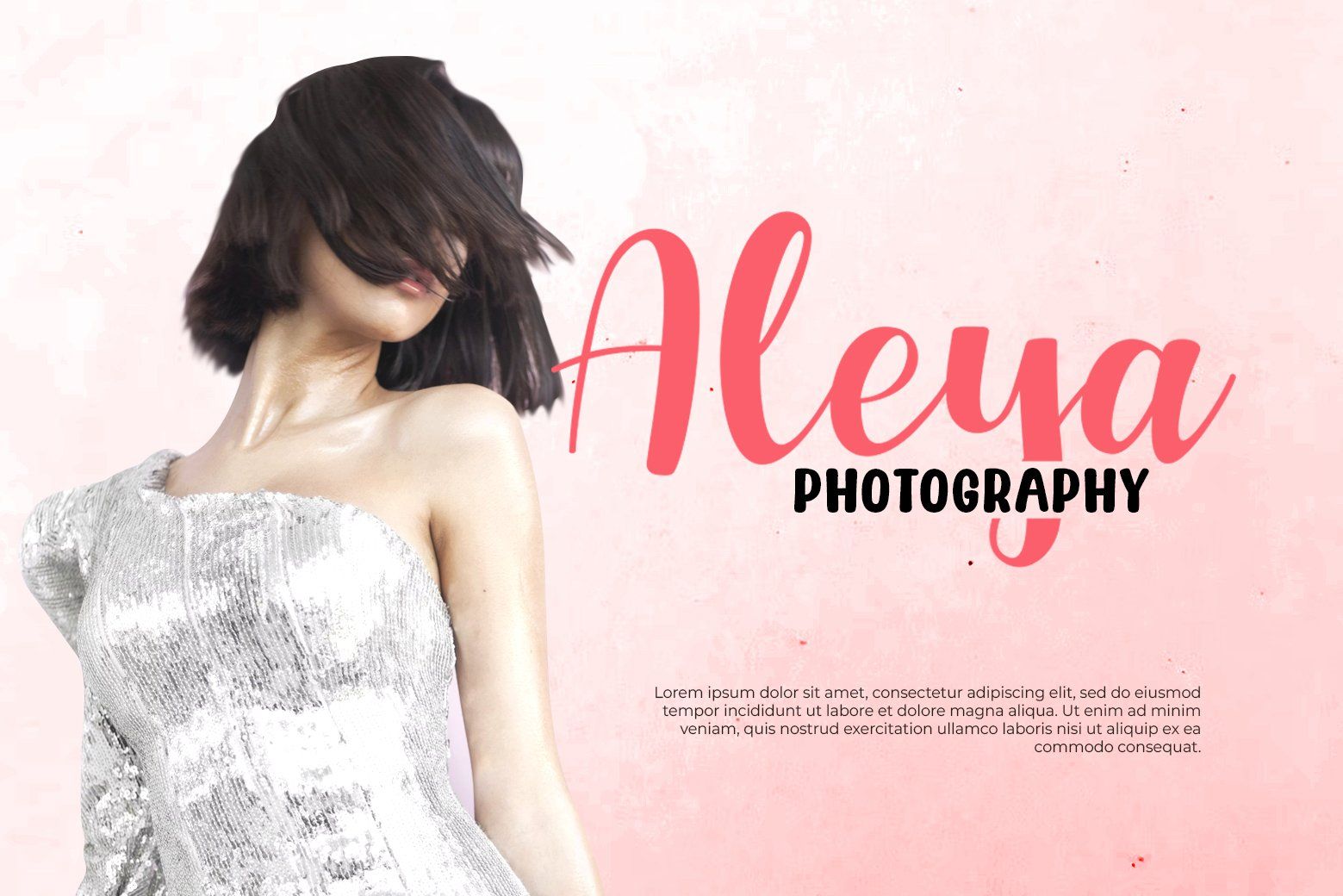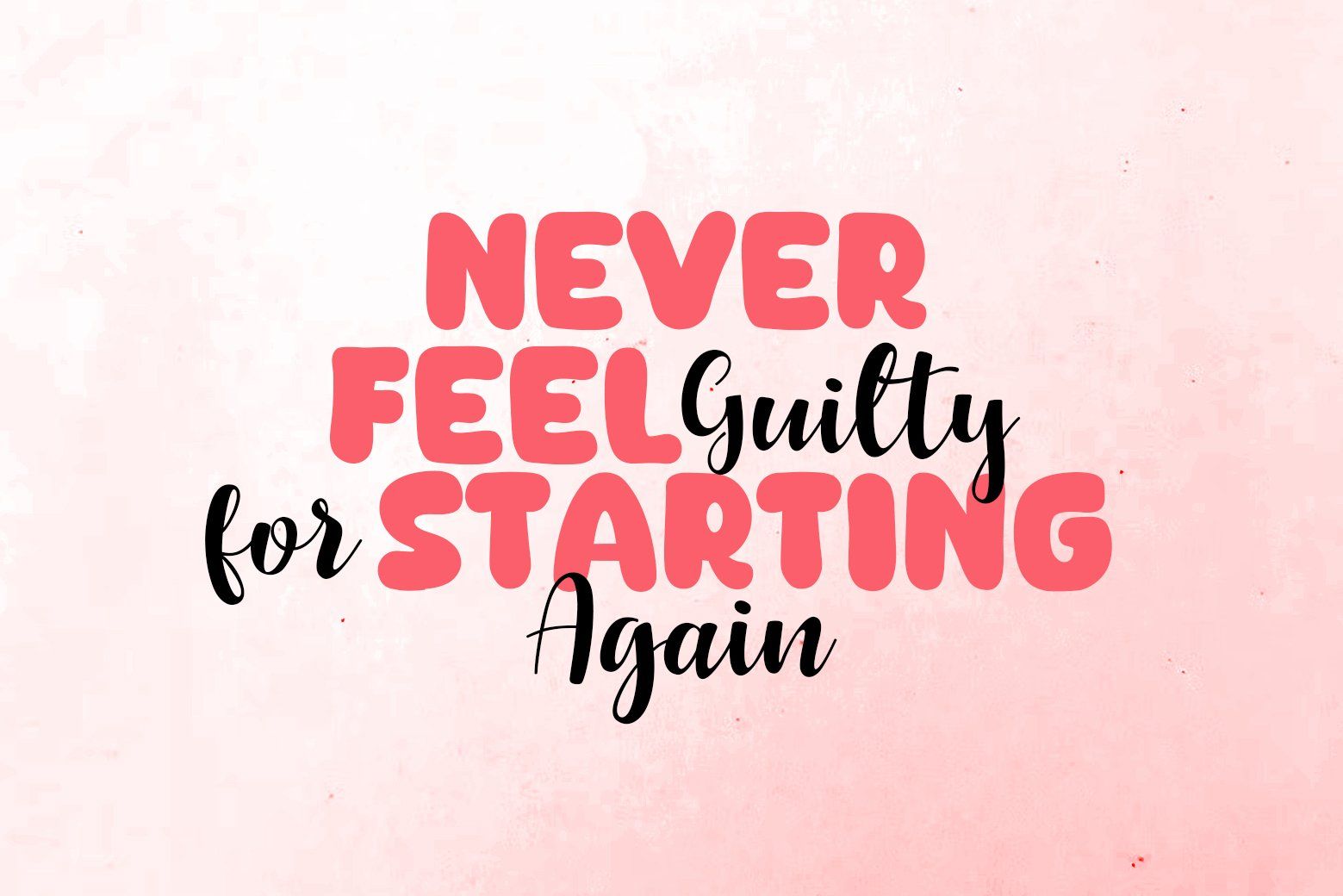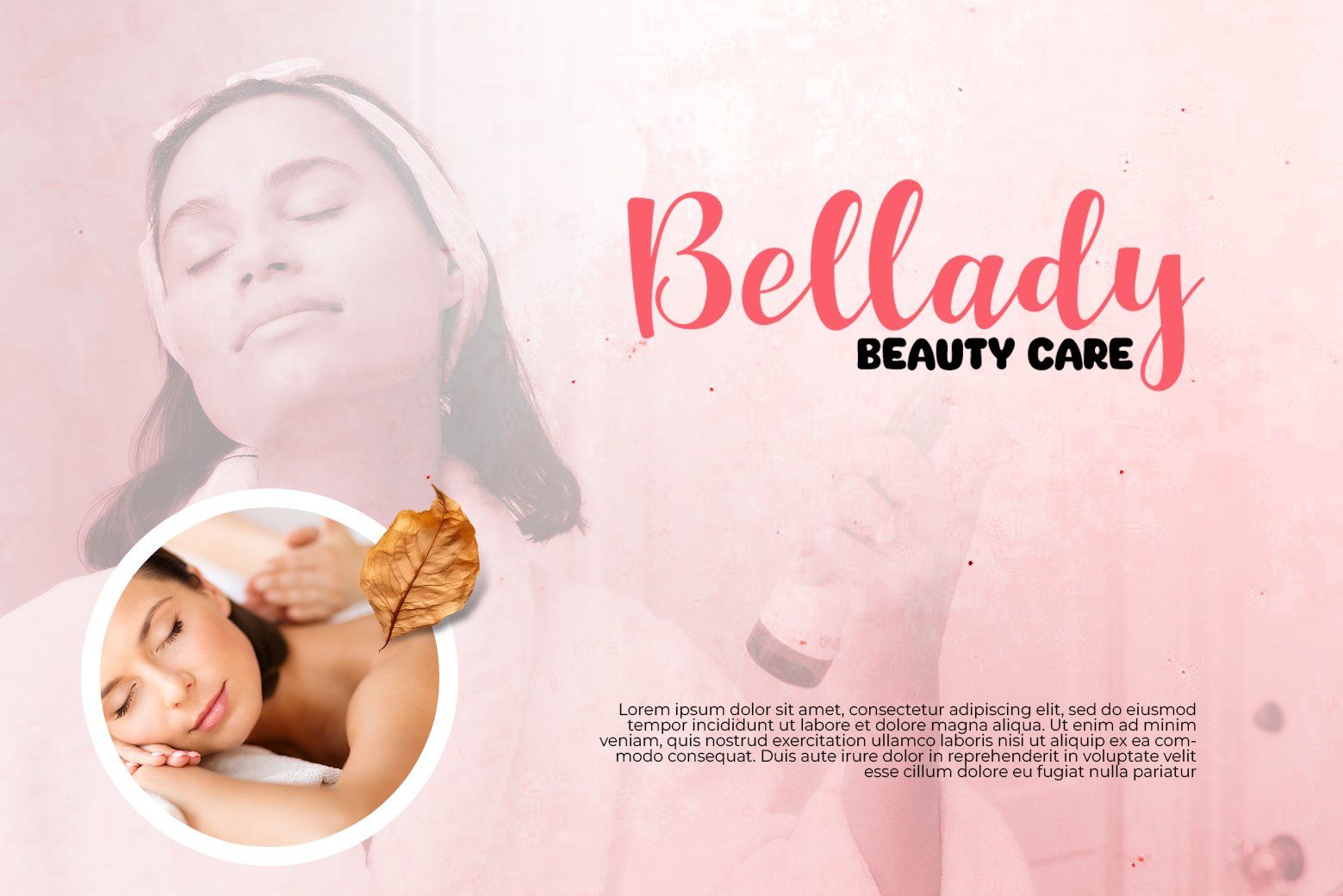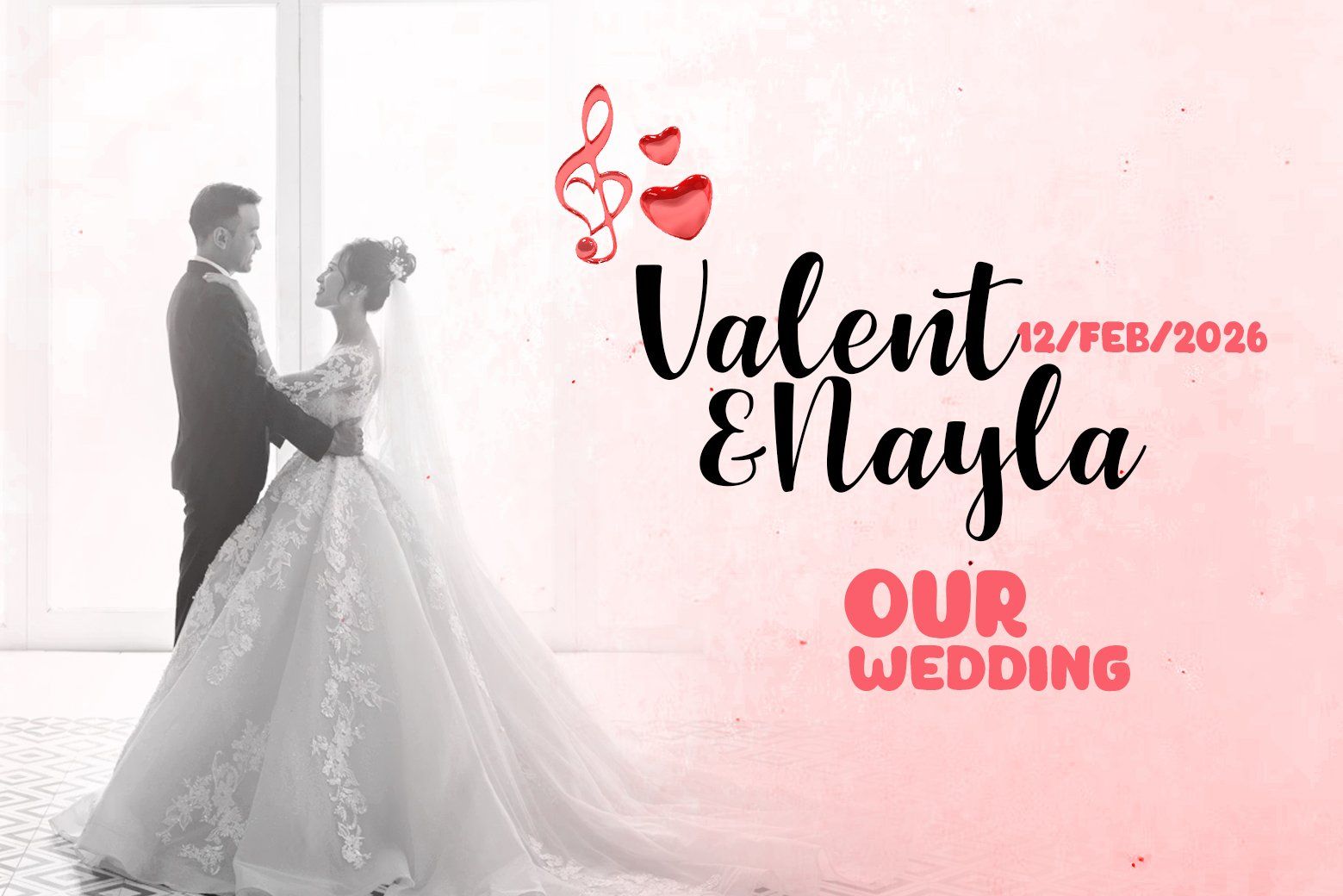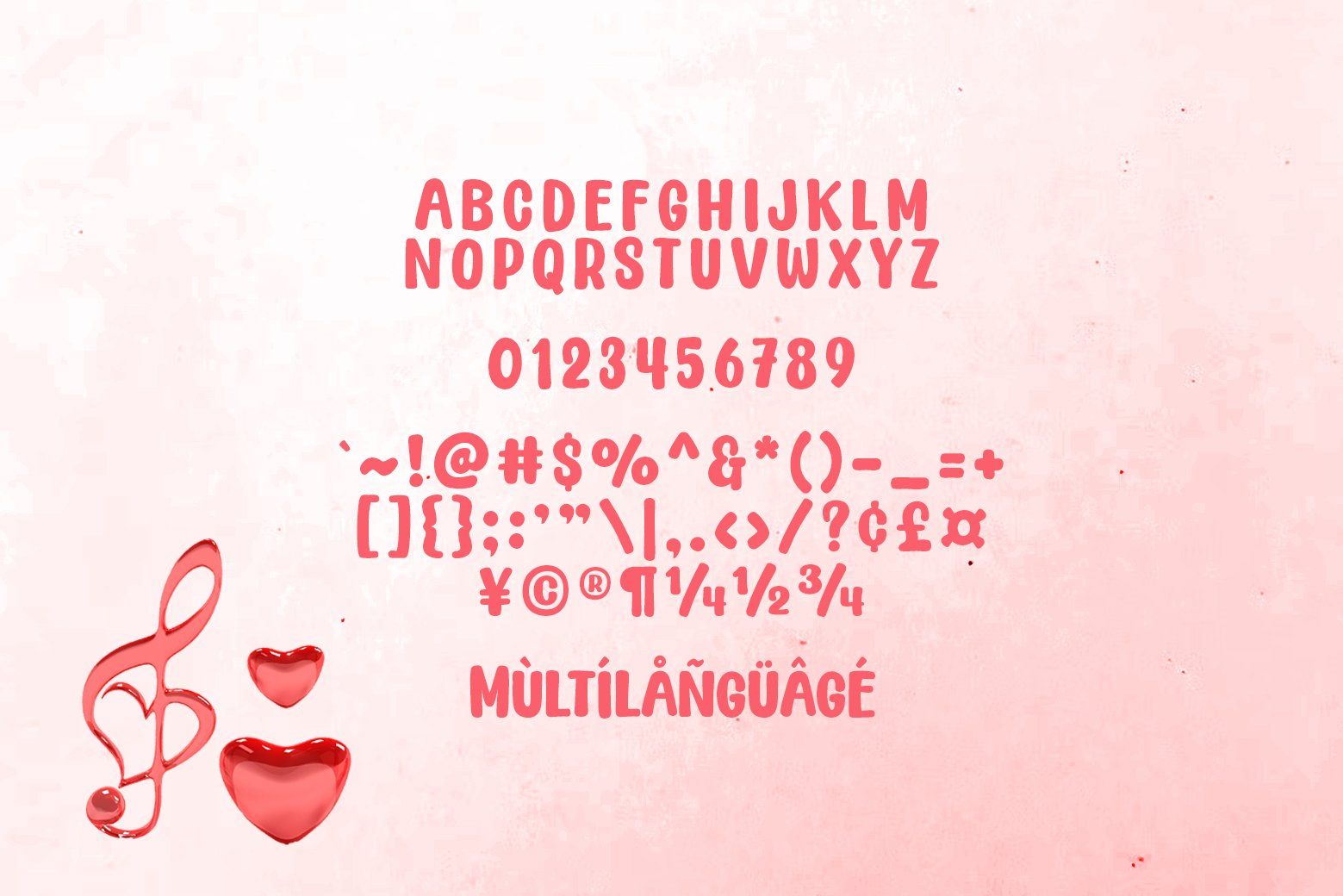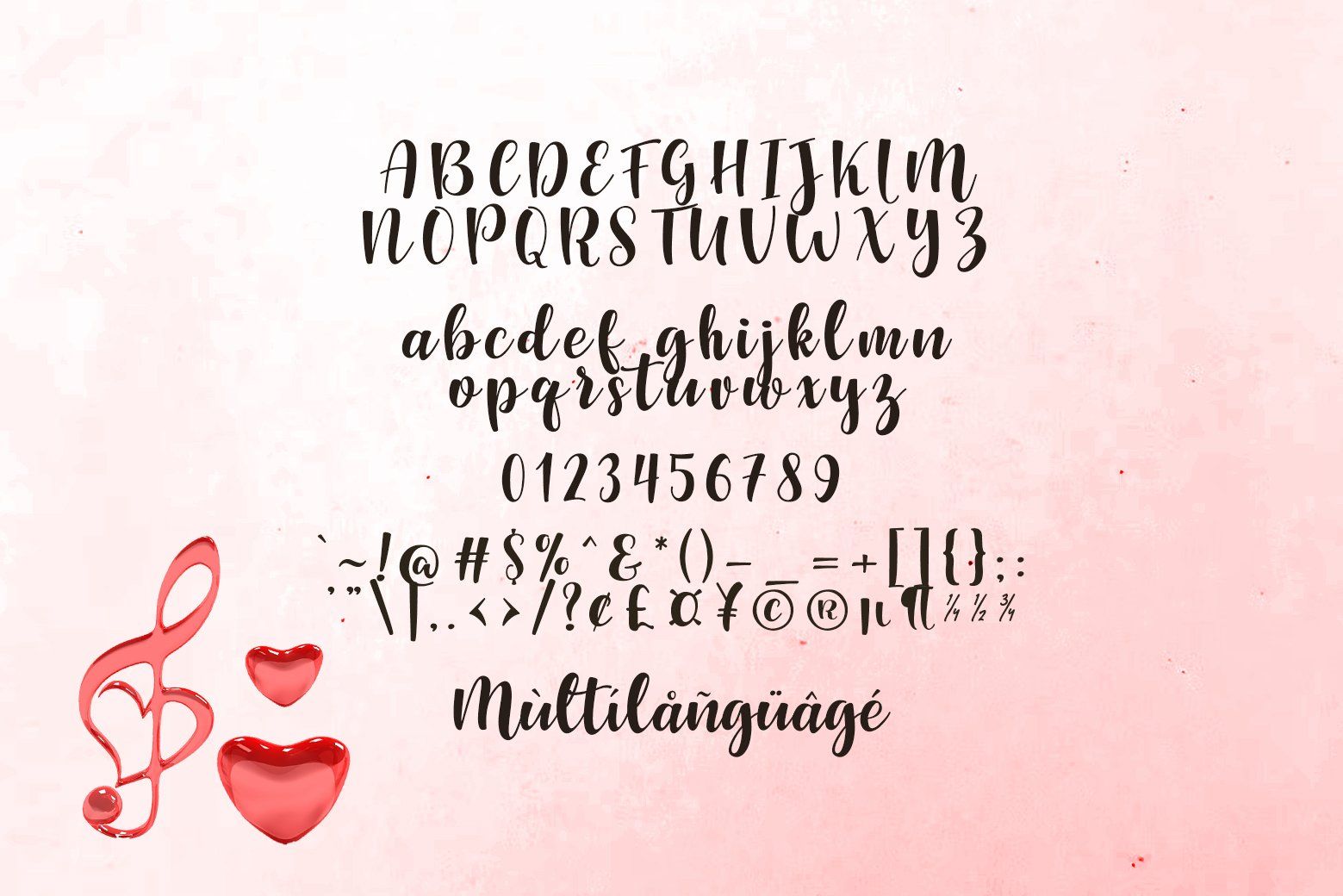
Create heartwarming designs with Song of Valentine — a romantic font duo that tells love stories through beautiful typography.
This enchanting collection pairs a graceful script that flows like handwritten love notes with a clean, modern sans serif that brings perfect balance and clarity. Together, they create harmonious designs that feel warm, intimate, and unforgettable.
Song of Valentine is perfect for wedding invitations, Valentine cards, romantic branding, social media quotes, and love-themed packaging. Every project gains a touch of passion and charm that instantly connects with viewers' hearts.